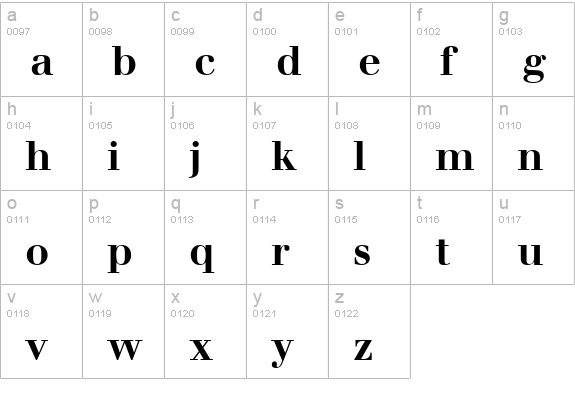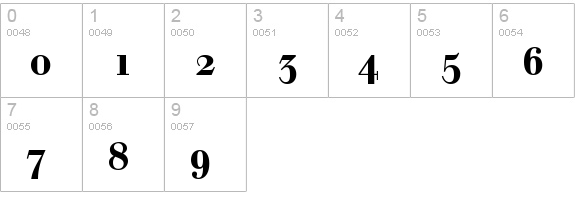
Walbaum Bold Oldstyle Figures Font Details
Walbaum Bold Oldstyle Figures is a strong, high-contrast variant in the Walbaum typeface family \xE2\x80\x94 well suited to headlines, attention-grabbing titles, and strong calls-to-action.
Walbaum Bold Oldstyle Figures font is a classic and timeless typeface that exudes elegance and sophistication. Its bold weight adds a touch of strength and confidence to any design, making it perfect for headings, titles, and impactful statements. The oldstyle figures lend a sense of tradition and heritage, evoking a nostalgic charm that resonates with both modern and vintage aesthetics. This font's meticulously crafted letterforms feature subtle variations in stroke width, creating a harmonious balance between thick and thin lines. The result is a visually pleasing and highly legible typeface that is suitable for both print and digital applications. With its generous x-height and open counters, Walbaum Bold Oldstyle Figures font ensures excellent readability even at smaller sizes. Whether it is used in body text or as display typography, this font maintains its clarity and readability, making it a versatile choice for a wide range of design projects. Furthermore, what sets this font apart is that it is freely available to download at FontsMarket.com. This means that designers, creatives, and enthusiasts alike can access and utilize this exquisite font without any financial constraints. Its availability as a free download allows for greater accessibility and encourages creativity, enabling designers to bring their visions to life without compromising on quality. In conclusion, Walbaum Bold Oldstyle Figures font is a stunning typeface that combines boldness, tradition, and readability. Its timeless appeal and freely available download make it a valuable asset to any designer's toolkit. Explore the possibilities and elevate your designs with this beautiful font from FontsMarket.com.